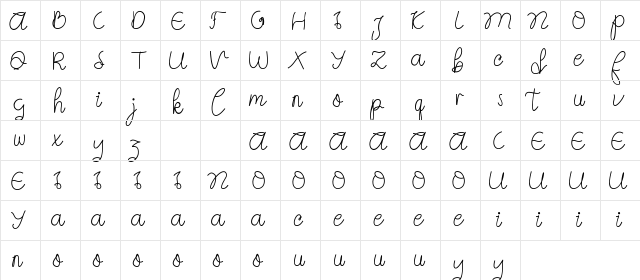
Eberta Light Demo Script Regular
| Foundry | Edric Studio |
| Designer | Yasri Ainun |
Design Context for Eberta Light Demo Script Typeface
Eberta Light Demo Script flows with the natural rhythm of handwritten lettering, making it ideal for designs that call for warmth and personal expression. Its slender proportions lend an understated elegance to any composition.